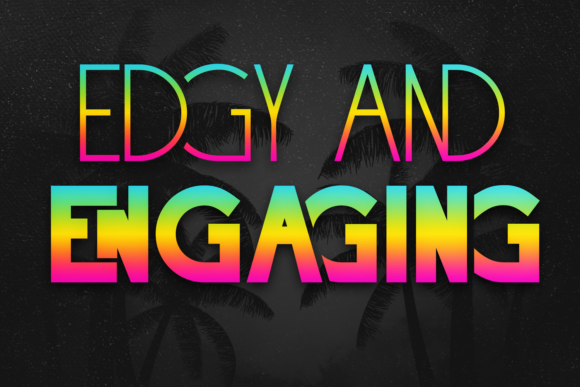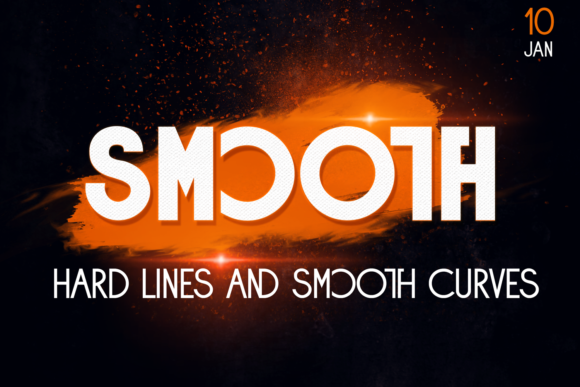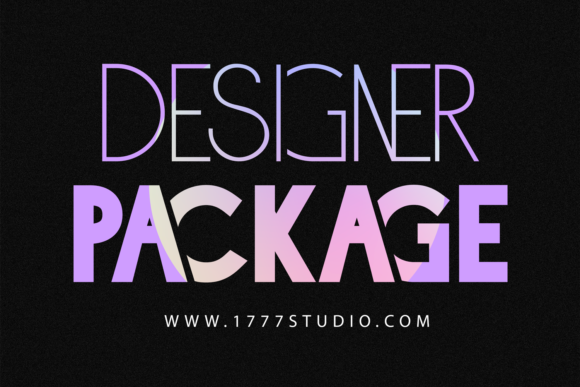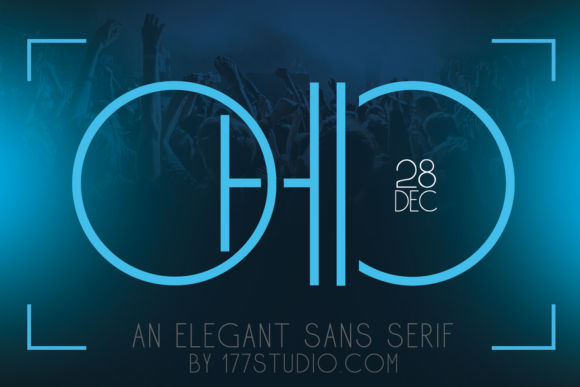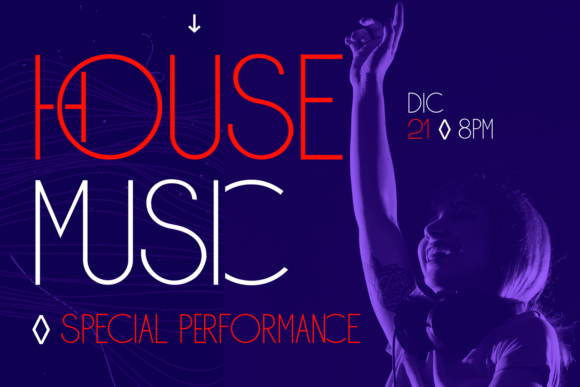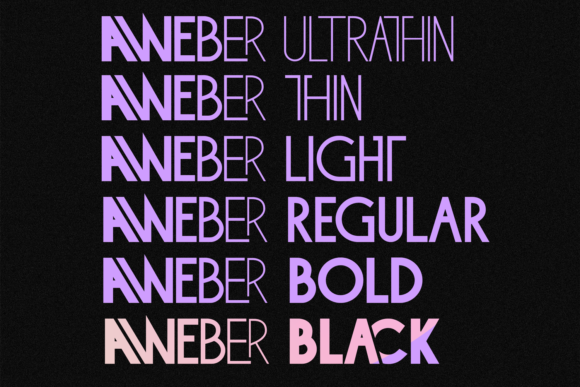
Aweber Font: Elevate Your Designs with a Modern Sans Serif
Aweber is a modern, bold, and incredibly adaptable sans serif font that has taken the design world by storm. Elegantly designed to become a true favorite, this font has the potential to bring each of your creative ideas to the highest level. In this article, we’ll dive into the features and benefits of Aweber Font, and explore how it can elevate your designs and take your craft to new heights.
What is Aweber Font?
Aweber Font is a sans serif font that boasts a clean, modern aesthetic. Its sleek lines, geometric shapes, and carefully crafted letterforms make it perfect for a wide range of design applications. Whether you’re working on a logo, branding project, website, or print material, Aweber Font is an excellent choice.
Key Features of Aweber Font
- Modern and Bold: Aweber Font has a bold and contemporary look that will make your designs stand out.
- Adaptable: This font is incredibly versatile and can be used in a variety of design contexts, from digital to print.
- Elegant Design: Aweber Font has been carefully crafted to exude elegance and sophistication, making it perfect for high-end designs.
- Easy to Read: The font’s clear and simple letterforms ensure excellent readability, even at small sizes.
Benefits of Using Aweber Font
So, why should you choose Aweber Font for your next design project? Here are just a few benefits:
- Elevate Your Brand: Aweber Font can help you create a strong, memorable brand identity that will leave a lasting impression on your audience.
- Increase Legibility: The font’s clear and simple design ensures that your message will be communicated clearly, even in complex designs.
- Stand Out from the Crowd: Aweber Font’s unique and modern aesthetic will help your designs stand out in a crowded marketplace.
- Save Time: With Aweber Font, you can create professional-looking designs quickly and easily, saving you time and effort.
Who Can Benefit from Aweber Font?
Aweber Font is an excellent choice for a wide range of designers and crafters, including:
- Graphic Designers: Aweber Font is perfect for creating logos, brochures, business cards, and other marketing materials.
- Web Designers: This font can be used to create stunning website headers, buttons, and other UI elements.
- Crafters: Aweber Font is ideal for crafters who want to add a professional touch to their DIY projects, such as handmade cards, gift tags, and scrapbooking.
- Art Directors: Aweber Font can be used to create eye-catching ad campaigns, magazine spreads, and other high-end designs.
Tips for Using Aweber Font
To get the most out of Aweber Font, here are a few tips:
- Experiment with Font Sizes: Aweber Font looks great at a range of font sizes, from small to large.
- Play with Color: Try pairing Aweber Font with bold, bright colors to create a striking design.
- Mix and Match: Combine Aweber Font with other fonts to create a unique and visually interesting design.
Aweber Font is a powerful design tool that can help you elevate your designs and take your craft to new heights. With its modern, bold, and adaptable design, this font is perfect for a wide range of applications. Whether you’re a graphic designer, web designer, crafter, or art director, Aweber Font is an excellent choice. So why wait? Download Aweber Font today and start creating stunning designs that will leave a lasting impression!